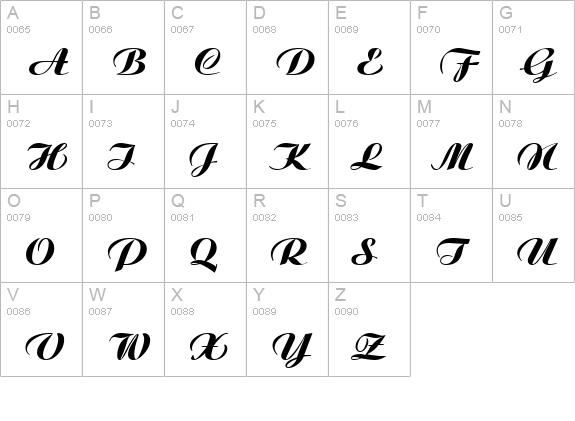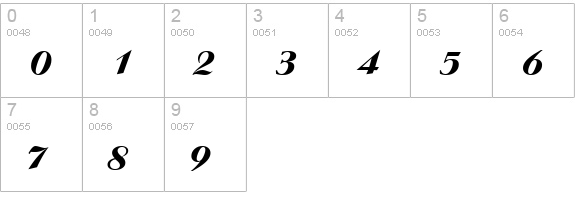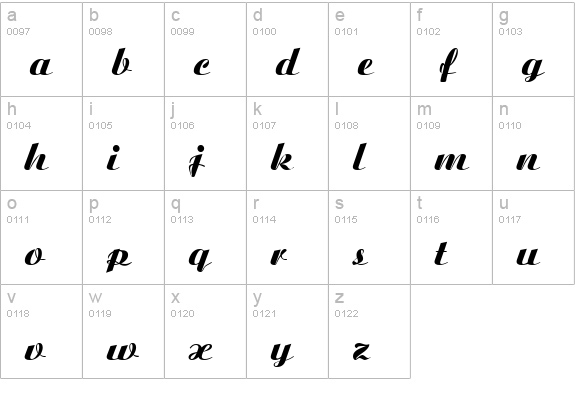
Aristocrat Regular is the standard, neutral variant in the Aristocrat typeface family \xE2\x80\x94 well suited to general body text, paragraphs, and standard typographic work.
Aristocrat Regular font exudes sophistication and elegance with its timeless design and classic appeal. This versatile typeface is perfect for adding a touch of refinement to any project, whether it be a wedding invitation, a luxury brand logo, or an elegant menu design. The clean lines and graceful curves of Aristocrat Regular font make it a go-to choice for designers seeking a touch of class. The best part? Aristocrat Regular font is completely free to download at FontsMarket.com. Now you can elevate your designs without breaking the bank, thanks to this exquisite font that is both stylish and accessible. Don't miss out on the opportunity to enhance your projects with the beauty and prestige of Aristocrat Regular font - download it for free today!